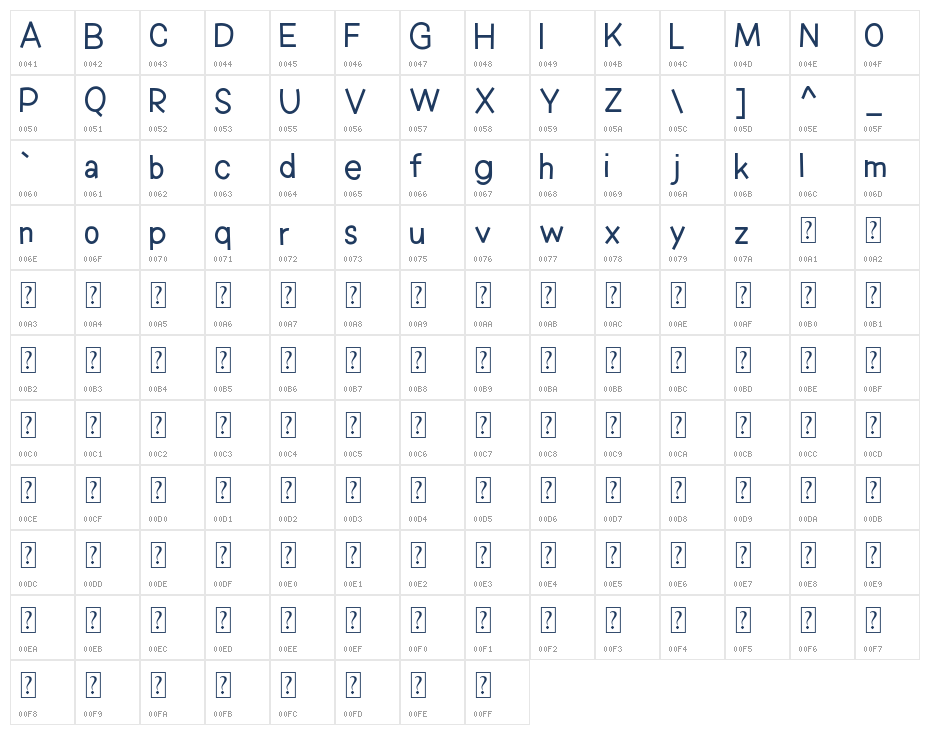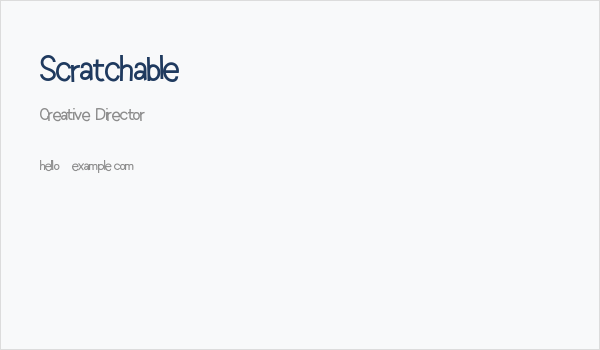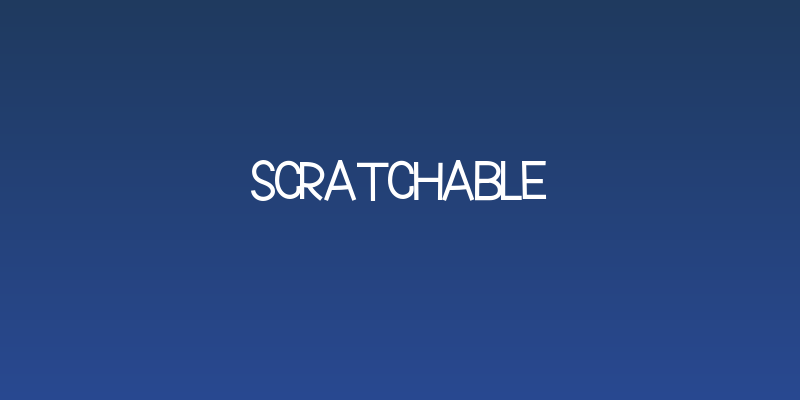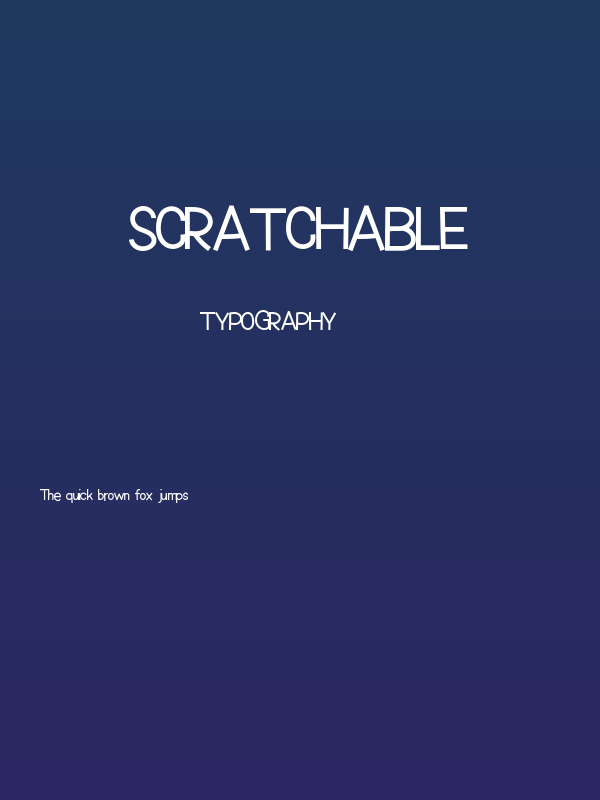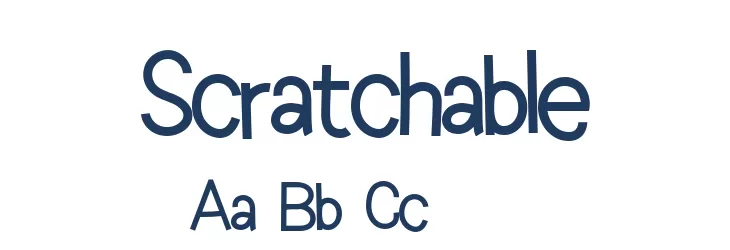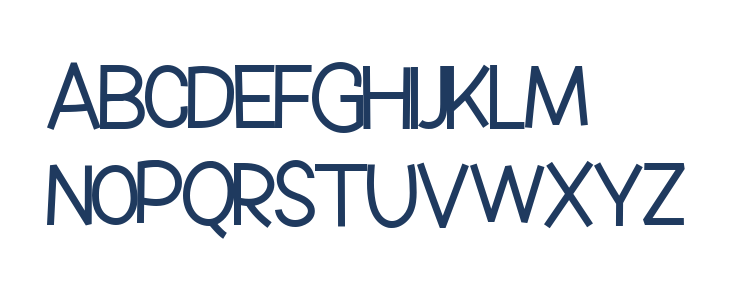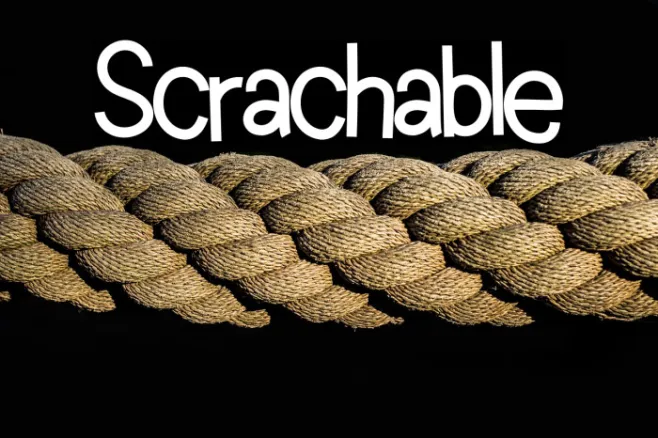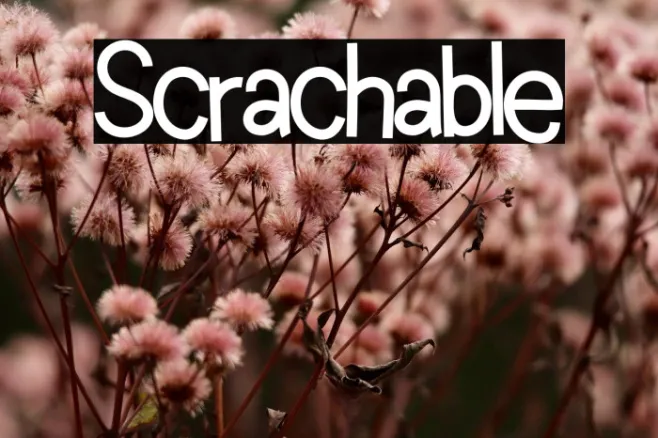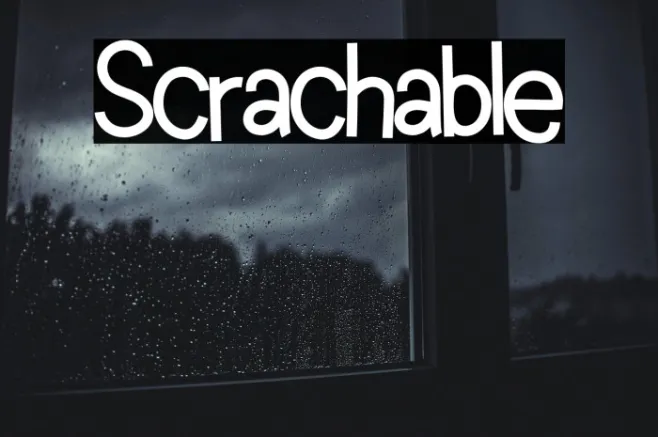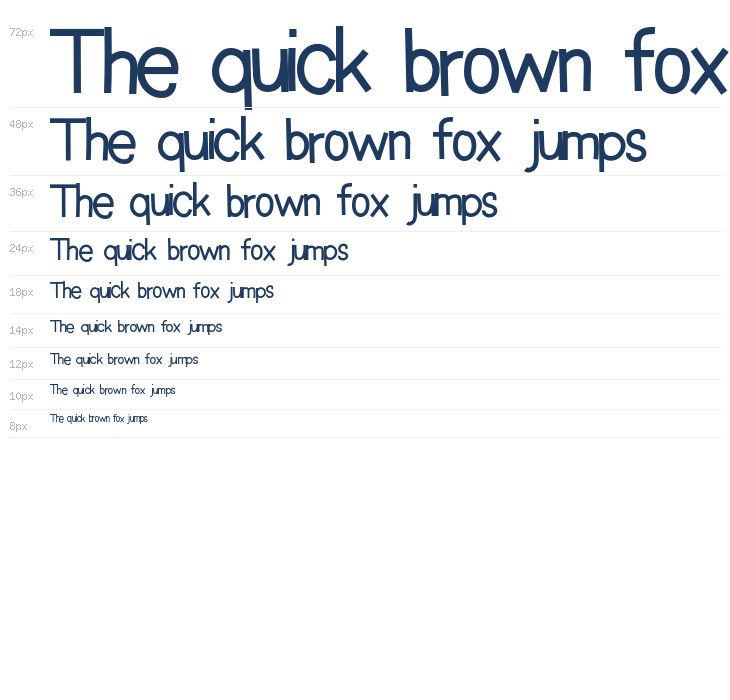
Scratchable Font
Scratchable Description
A playful, informal sans-serif font with a slightly irregular, hand-drawn appearance. The characters are rounded with varying stroke widths, giving it a friendly and approachable feel.
Scratchable
| Overall Style | Casual, Friendly, Hand-drawn |